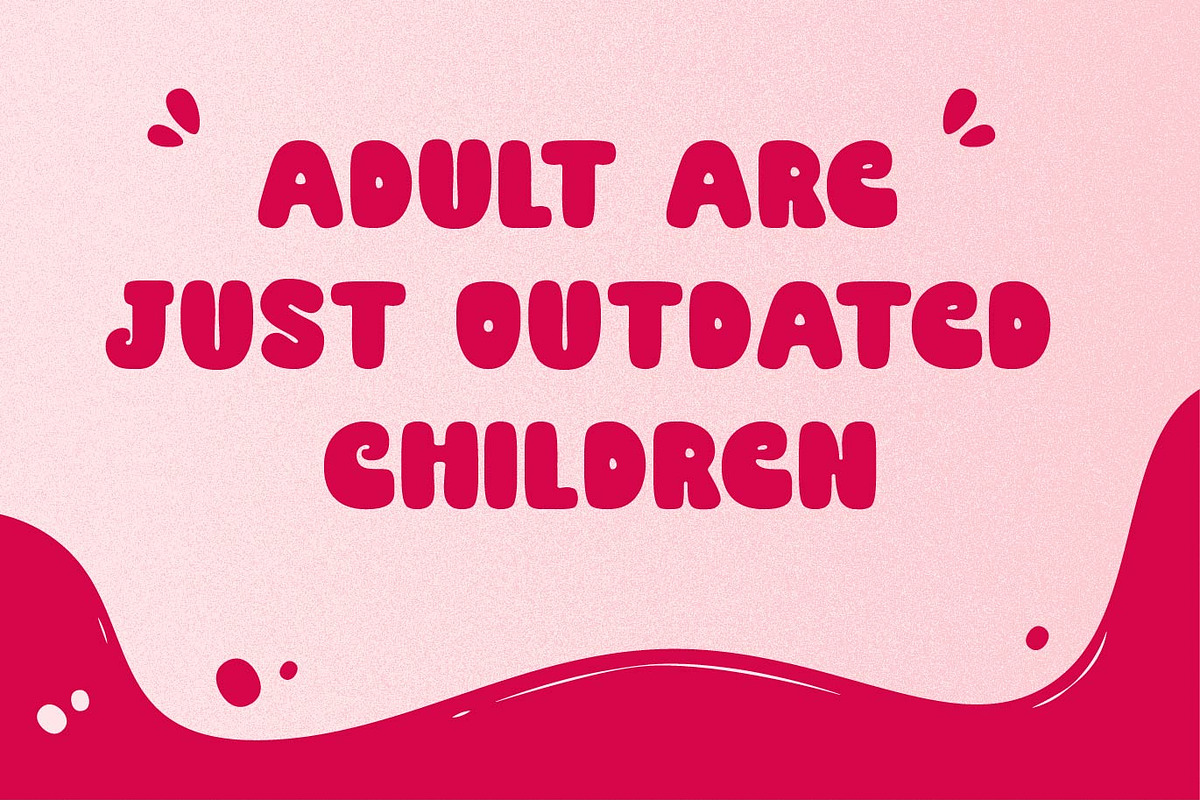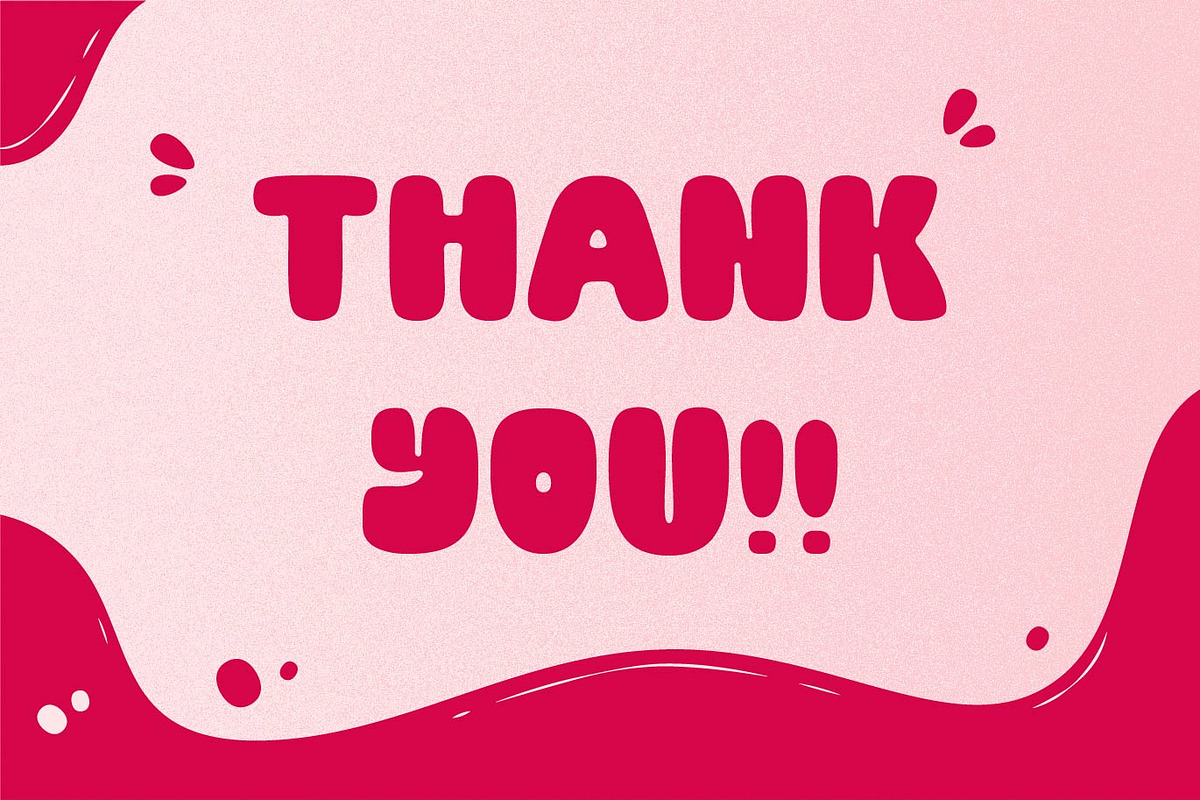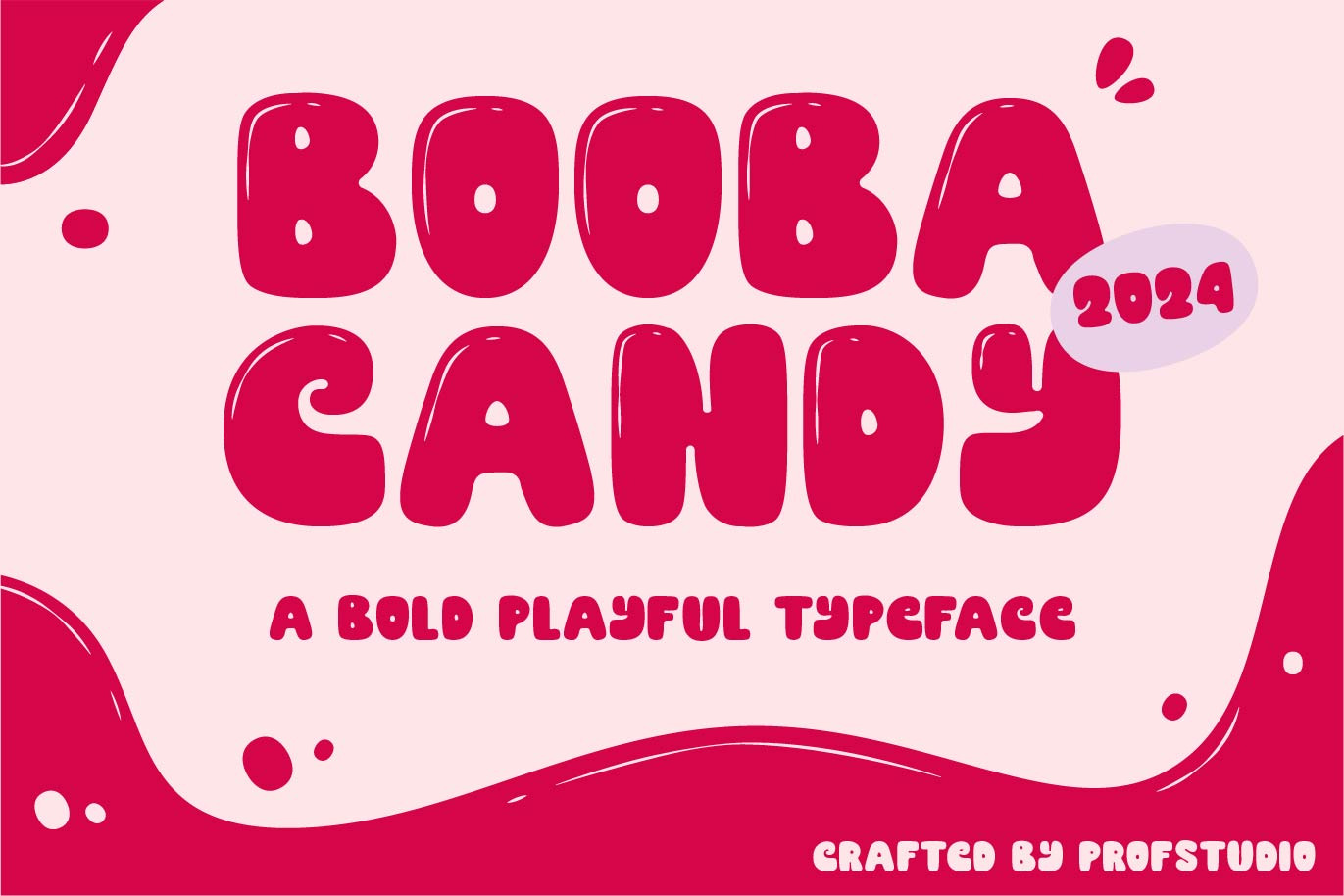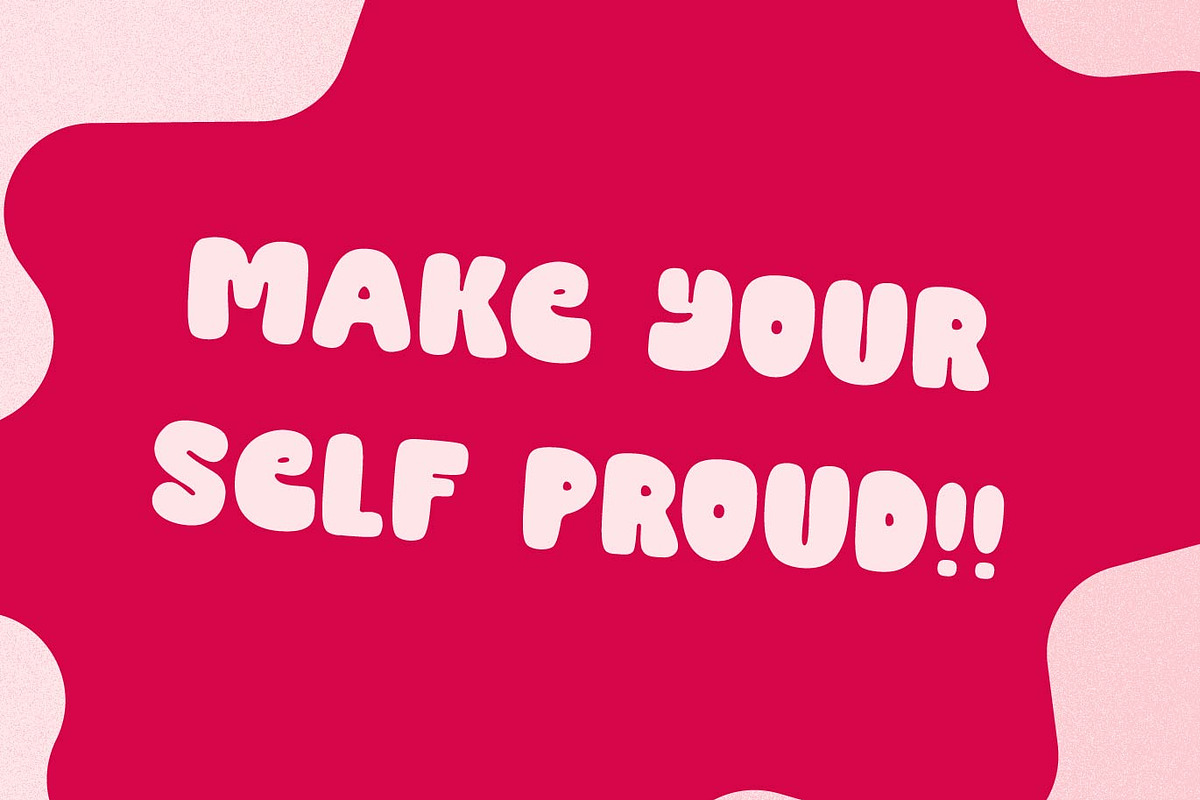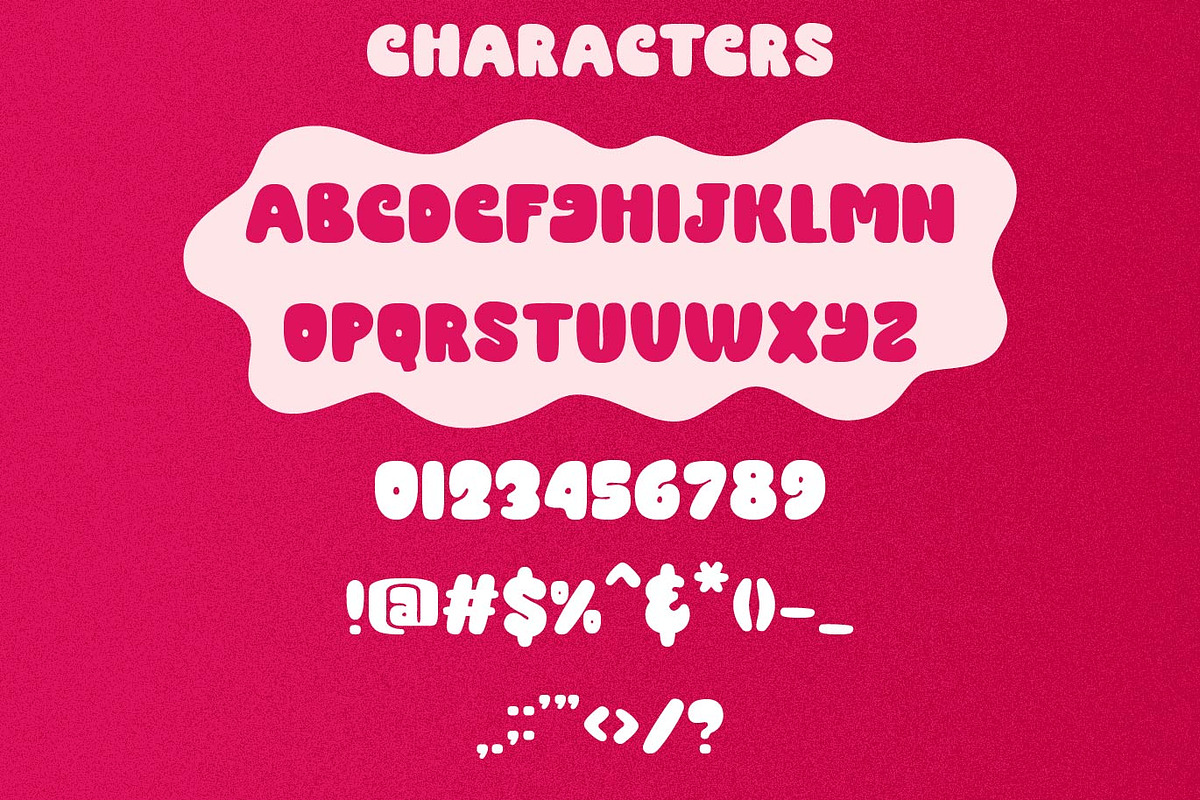
Booba Candy - Bold Bubble Typeface
Booba Candy - Bold Bubble Typeface which can be interpreted professional. we keep this font looks Playful, bubbly, readable, stylish, catchy and easy to use.
Booba Candy - is the great choice for event design ,magazine, children book, playful poster, and many other design project. Booba Candy here to make your work to high level!!!